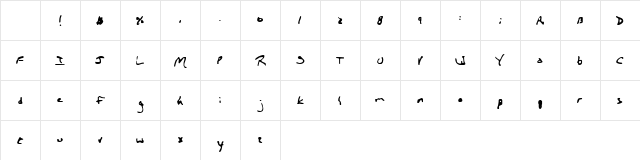
Foreign Faction is a composed and adaptable typeface that performs quietly and consistently across a wide range of design contexts.
Pro Tip: Use Foreign Faction in both headline and body roles to test its range before committing to a single application.